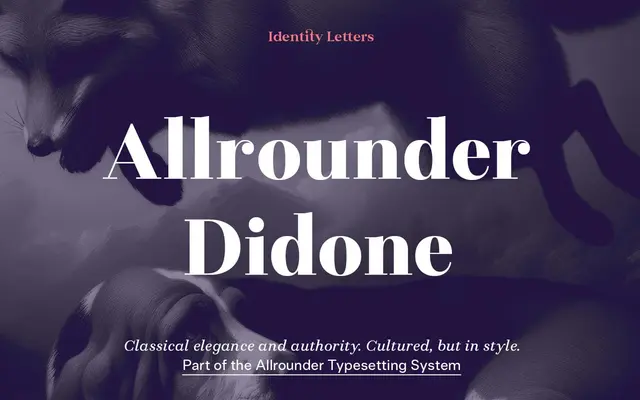
Allrounder Didone
A Didone serif in six weights with two optical sizes, pitched at fashion, culture and science publishing.
Part of the Allrounder superfamily, this Didone offers six weights from XLight to Bold, each with a matching italic, across two optical variants: the standard cut for general typesetting and Allrounder Didone Big for display use at larger sizes. The approximately 950-glyph set includes small capitals, oldstyle and lining figures, scientific inferiors, superscripts, subscripts, and an extensive discretionary ligature set. OpenType feature coverage makes it serviceable across editorial, branding and academic contexts where high-contrast serifs are appropriate.
High contrast between thick and thin strokes with vertical stress and hairline serifs, characteristic of the Didone or Modern serif tradition. The foundry names it explicitly as Didone.